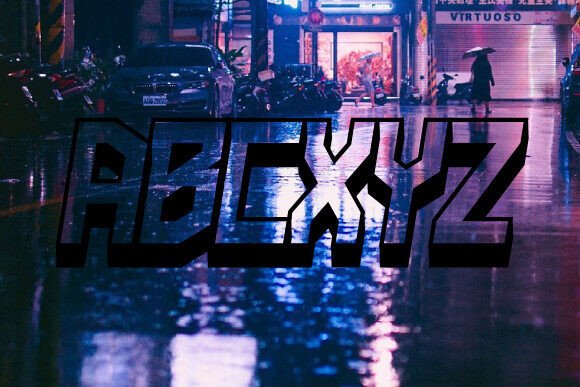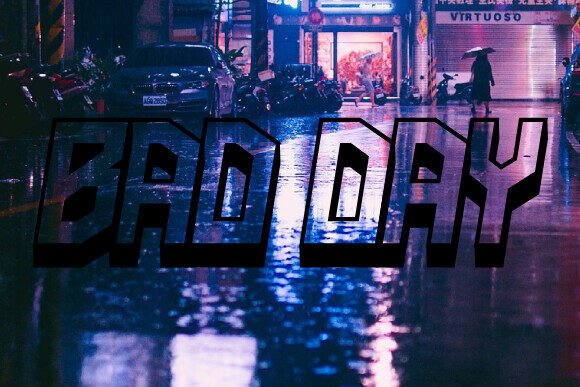
Unleash Your Creativity with Aggressor Font: The Ultimate Choice for Bold Designs
In the world of typography, fonts play a crucial role in conveying the message and tone of a design. When it comes to creating bold, eye-catching visuals, the right font can make all the difference. This is where Aggressor Font comes in – a futuristic display font designed to make a statement. With its sharp angles, thick strokes, and cyberpunk aesthetic, Aggressor Font is the perfect choice for designers and crafters looking to add a strong, aggressive edge to their work.
What is Aggressor Font?
Aggressor Font is a bold, futuristic display font built for impact. Its unique design features sharp angles, thick strokes, and a cyberpunk vibe that sets it apart from other fonts. This font is specifically designed for use in gaming titles, action posters, techno branding, and any project that requires a strong, aggressive look.
Key Features of Aggressor Font
- Bold and Futuristic Design: Aggressor Font boasts a bold, futuristic design that is sure to grab attention.
- Sharp Angles and Thick Strokes: The font’s sharp angles and thick strokes give it a rugged, aggressive look that’s perfect for action-packed designs.
- Cyberpunk Vibe: The font’s cyberpunk aesthetic adds a touch of edginess and sophistication to any design.
- Highly Versatile: Aggressor Font can be used in a variety of projects, from gaming titles and action posters to techno branding and more.
Who Can Benefit from Aggressor Font?
Aggressor Font is perfect for designers and crafters who want to add a bold, aggressive edge to their work. This includes:
- Game Developers: Aggressor Font is ideal for creating eye-catching gaming titles that stand out from the crowd.
- Graphic Designers: Graphic designers can use Aggressor Font to create bold, attention-grabbing posters, flyers, and brochures.
- Branding Experts: Aggressor Font can be used to create strong, memorable brand identities for techno and gaming companies.
- Crafters and Makers: Crafters and makers can use Aggressor Font to add a bold, edgy touch to their handmade projects, such as custom t-shirts, stickers, and more.
Aggressor Font is a powerful design tool that can help you create bold, eye-catching visuals that demand attention. With its sharp angles, thick strokes, and cyberpunk vibe, this font is perfect for designers and crafters looking to add a strong, aggressive edge to their work. Whether you’re creating gaming titles, action posters, techno branding, or handmade projects, Aggressor Font is the ultimate choice for making a statement.